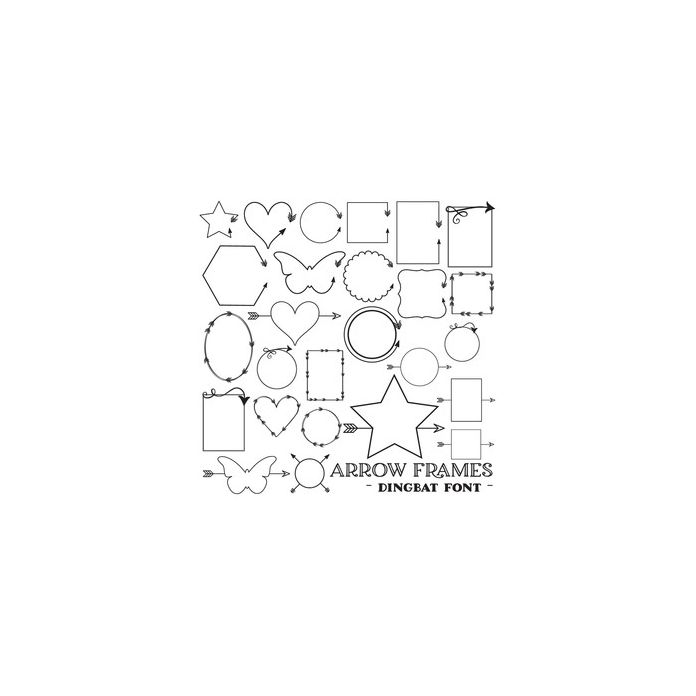
arrow frames dingbat font
Arrow Frames Dingbat Font - contains 26 arrow frames allocated to uppercase and lowercase letters and accessible via the glyphs panel.